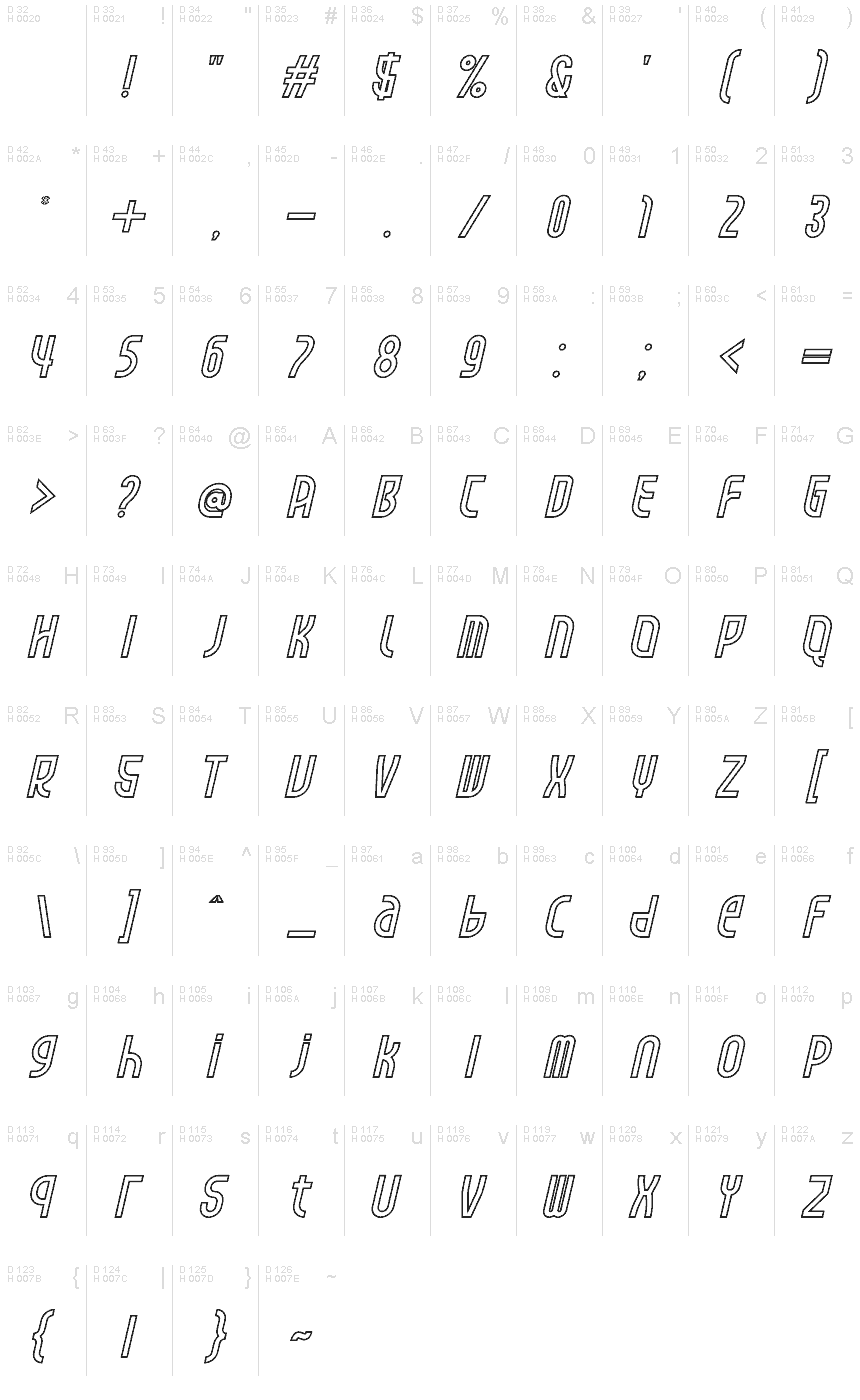
Royagna Outline Italic
Royagna Outline Italic font by Rvandtype is a condensed font that offers a futuristic and modern take on geometric display styles. It’s simple but sleek design combines long even lines with minimum slope angles and sharp points at some freeform edges. The corporate-inspired type has both hidden and apparent symmetrical shapes within different letters which makes it very interesting for the reader.
Individual elements of this innovative font can be cut off to make minimal logos. However, its typical use is as part of titles and headers on websites, in both printed magazines or newspapers, flyers, food labels, music album covers or applications.